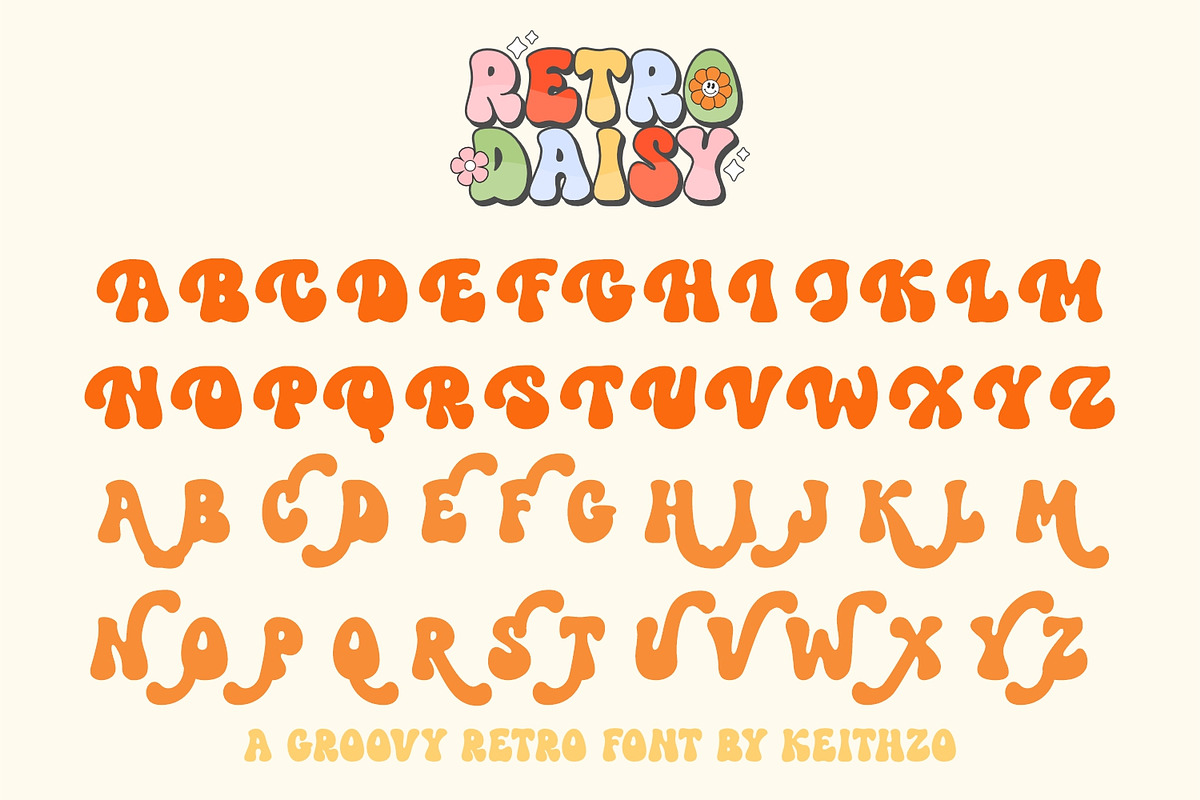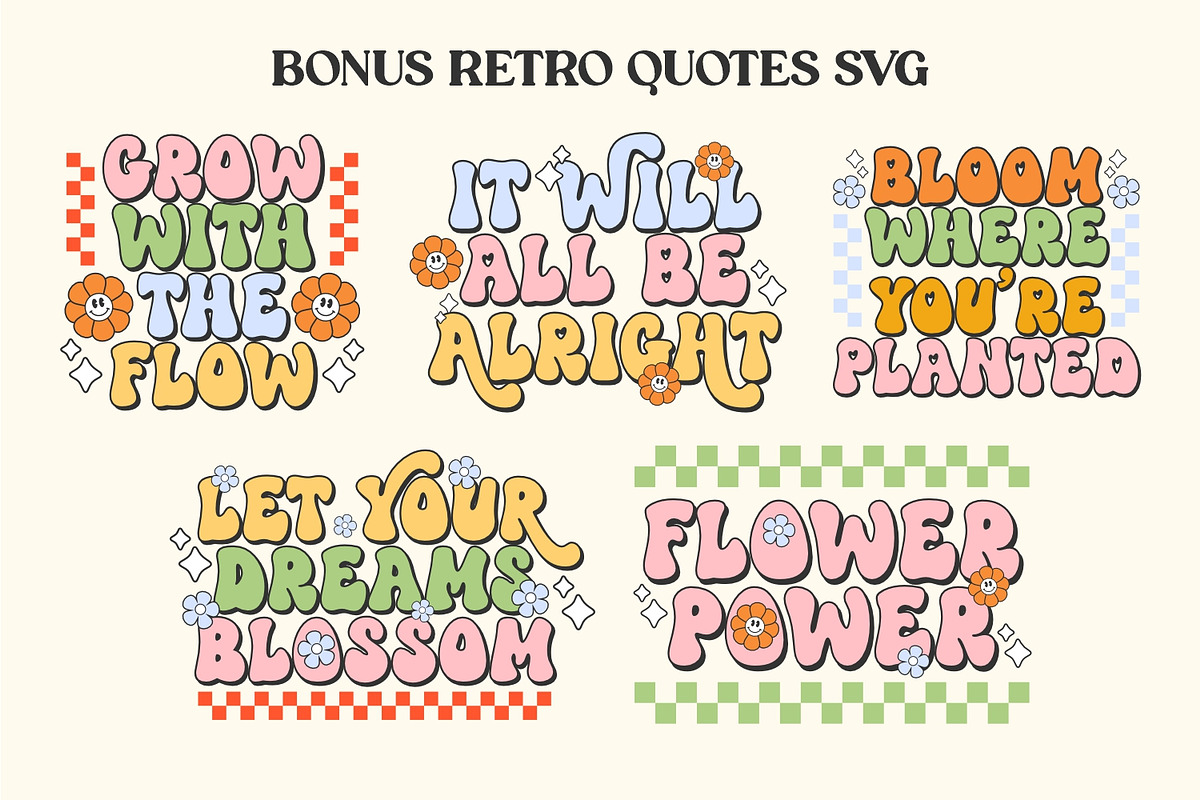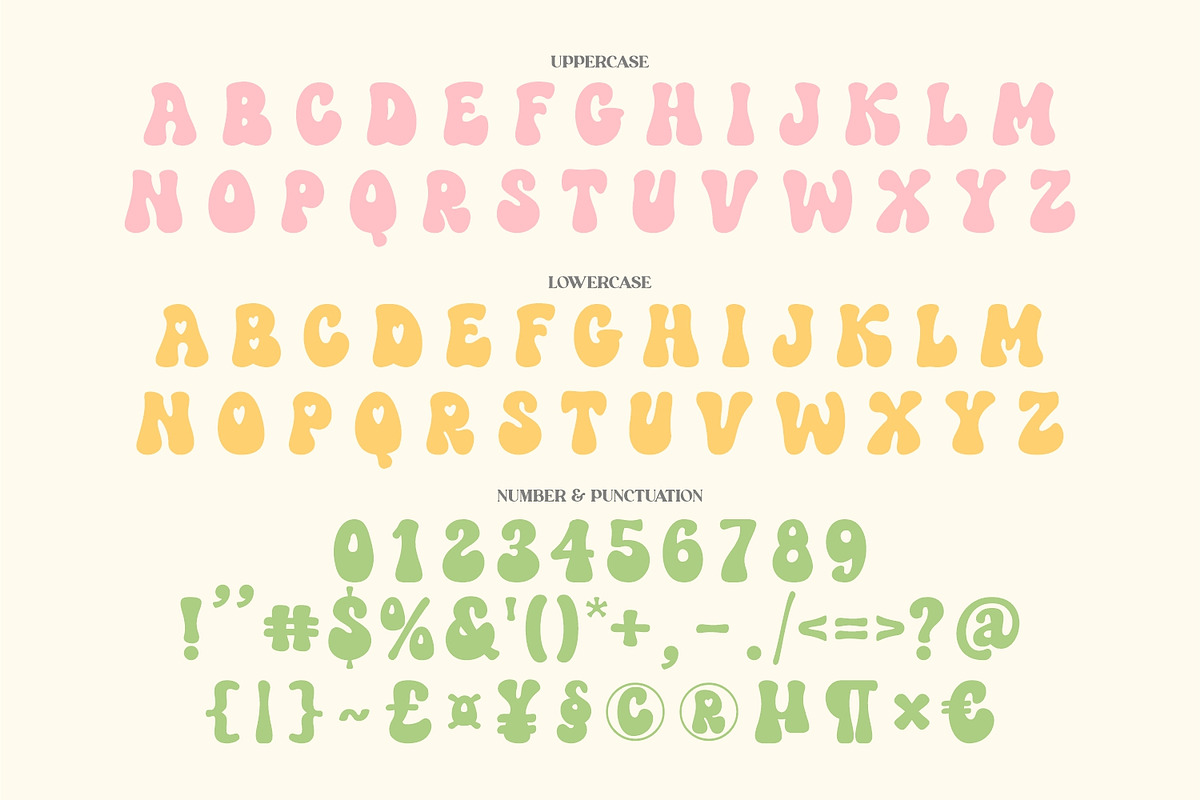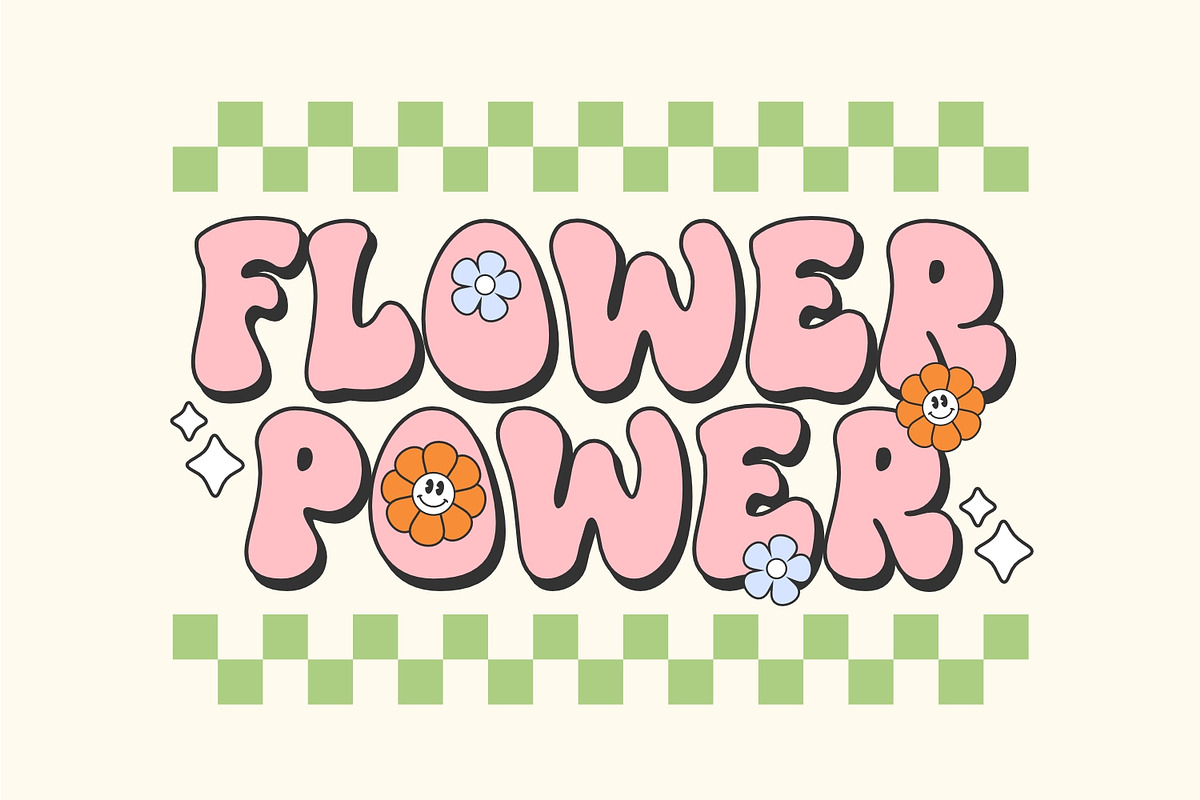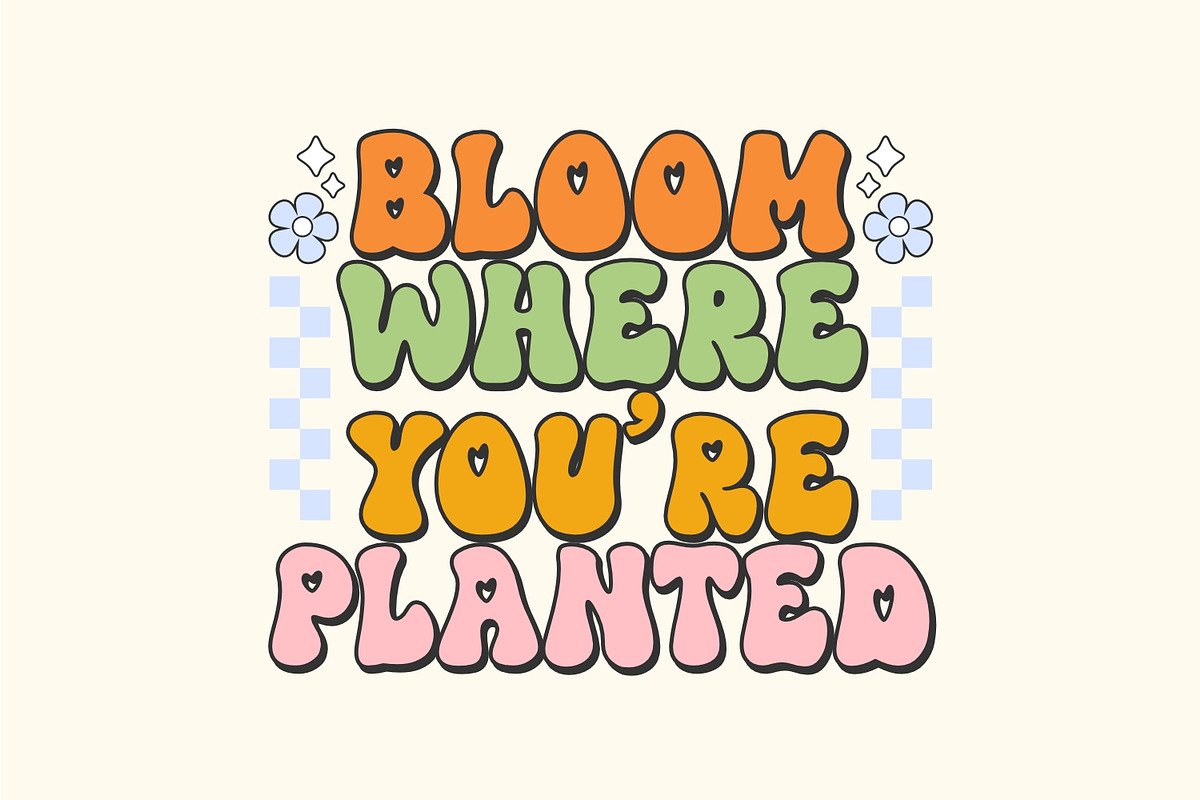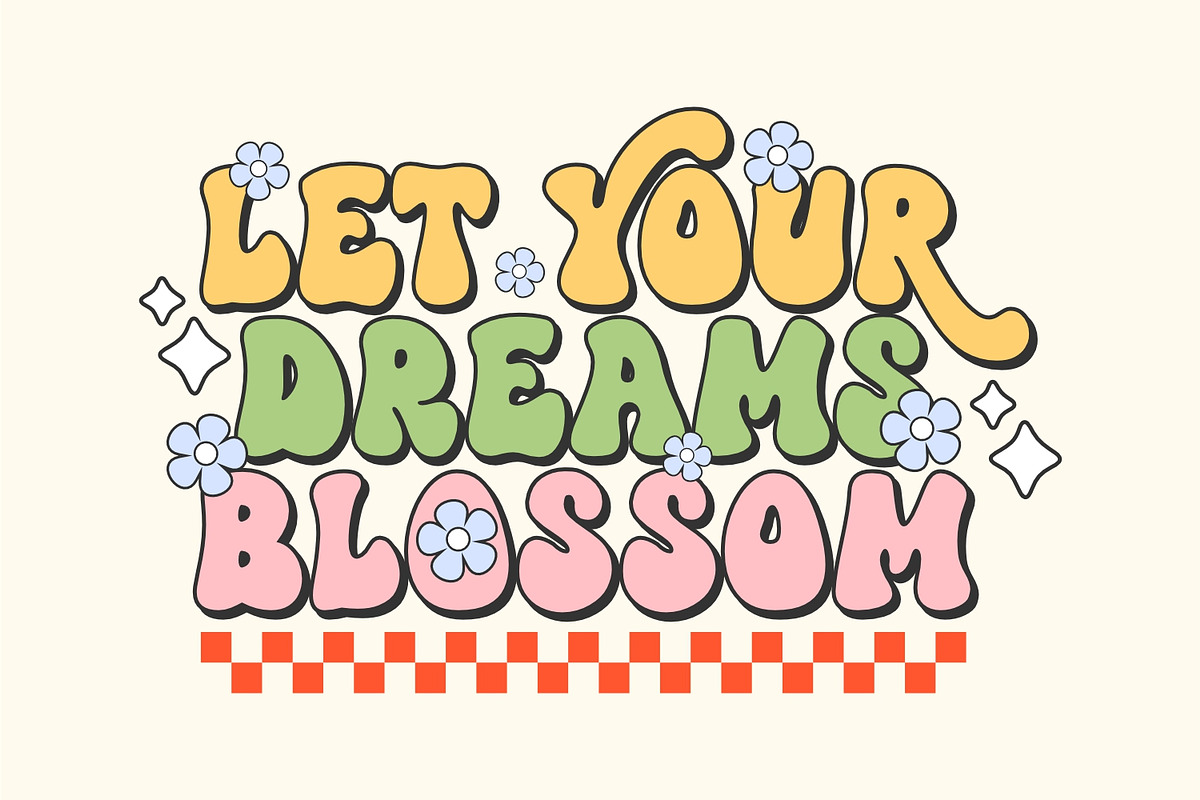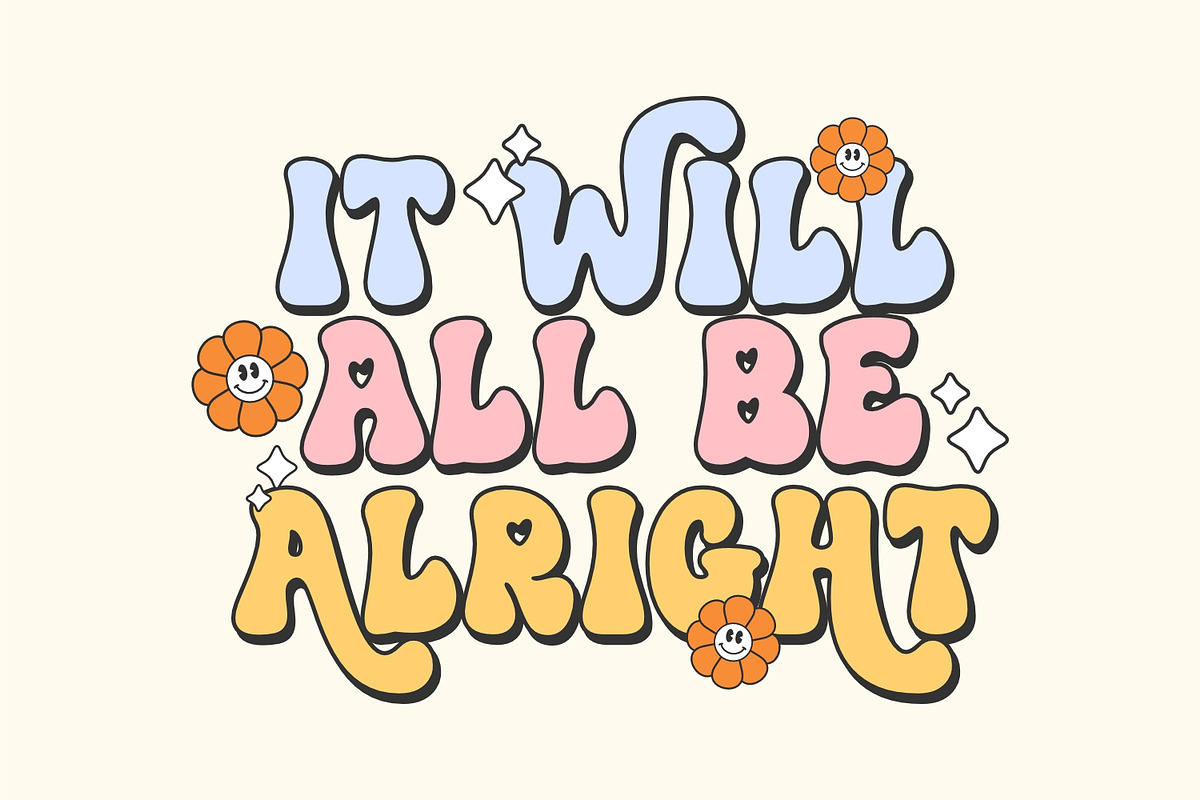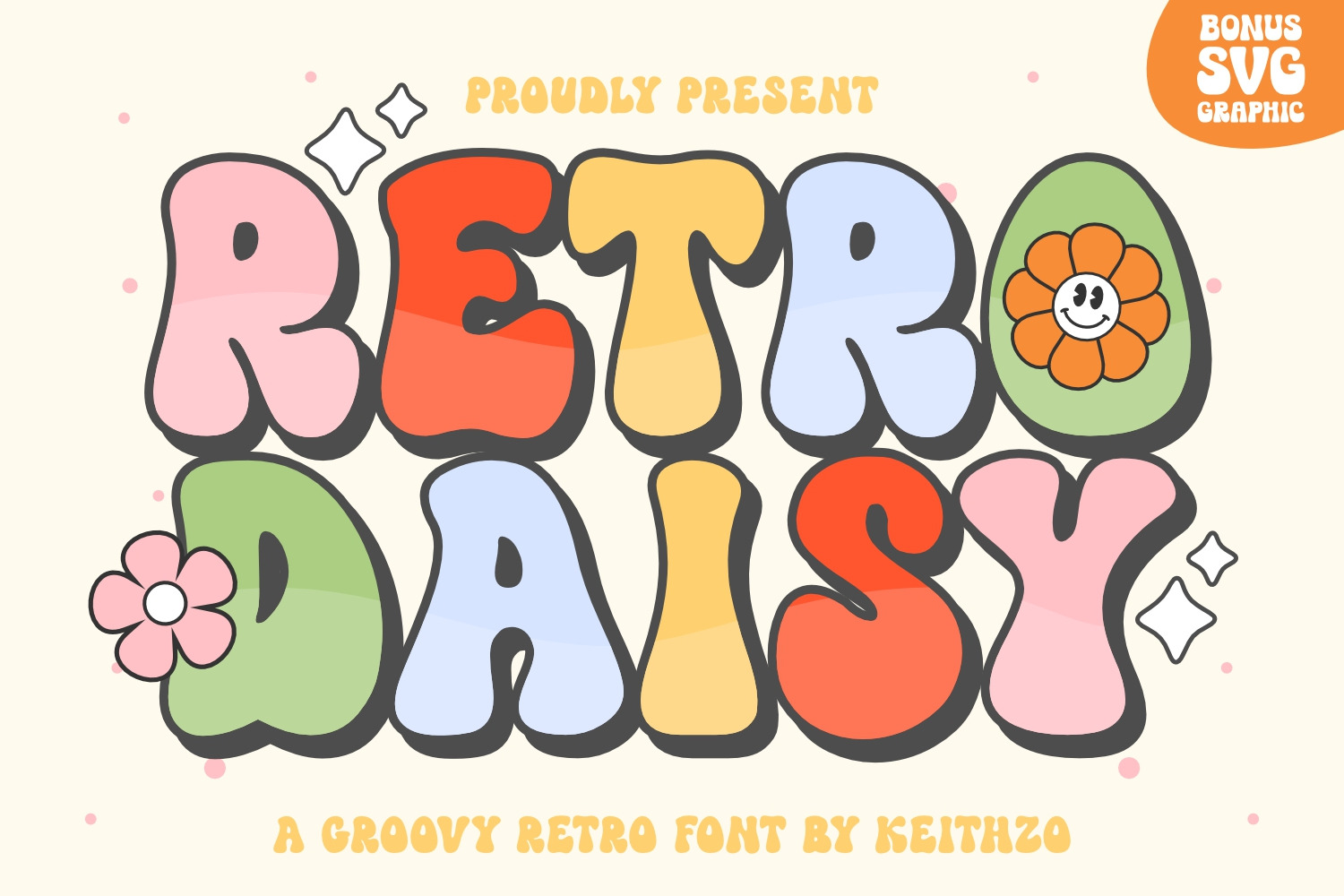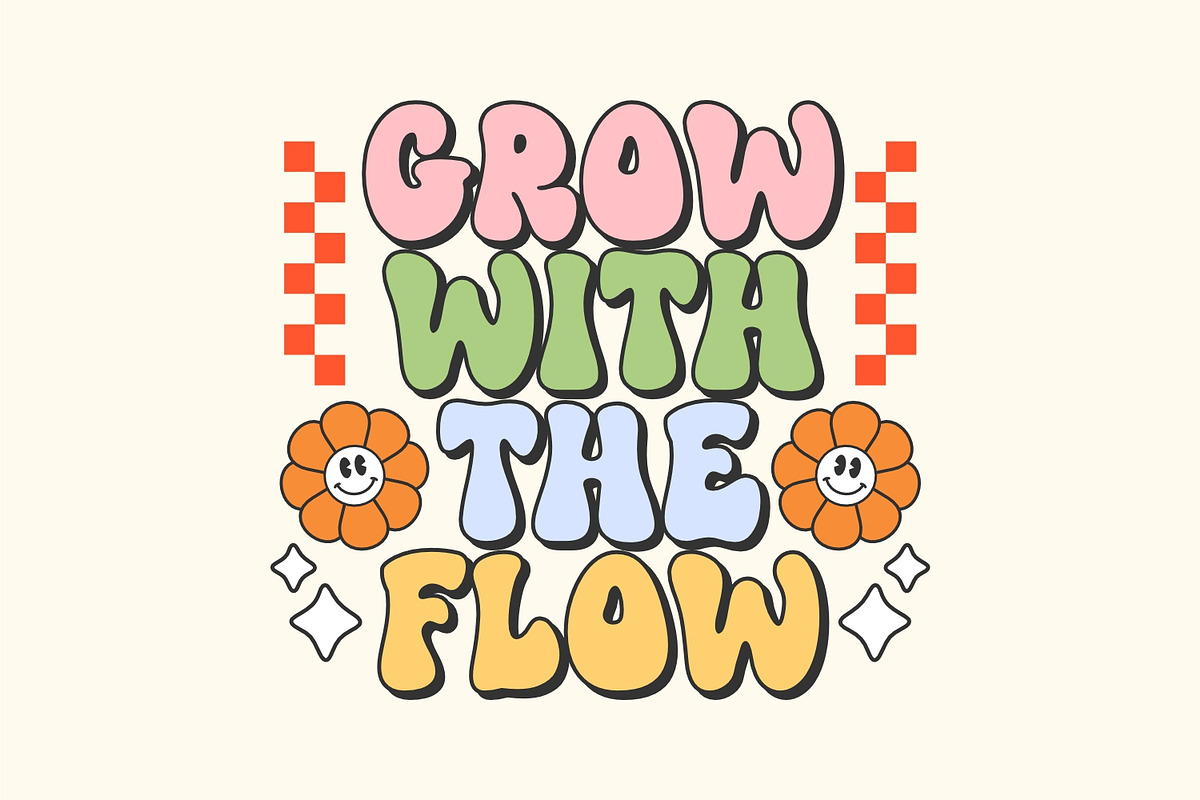
Retro Daisy - Groovy Retro Font
Retro Daisy is a cute and quirky display font. It will add an incredibly joyful touch to your designs. Add this beautiful display font to each of your creative ideas and notice how it makes them stand out!